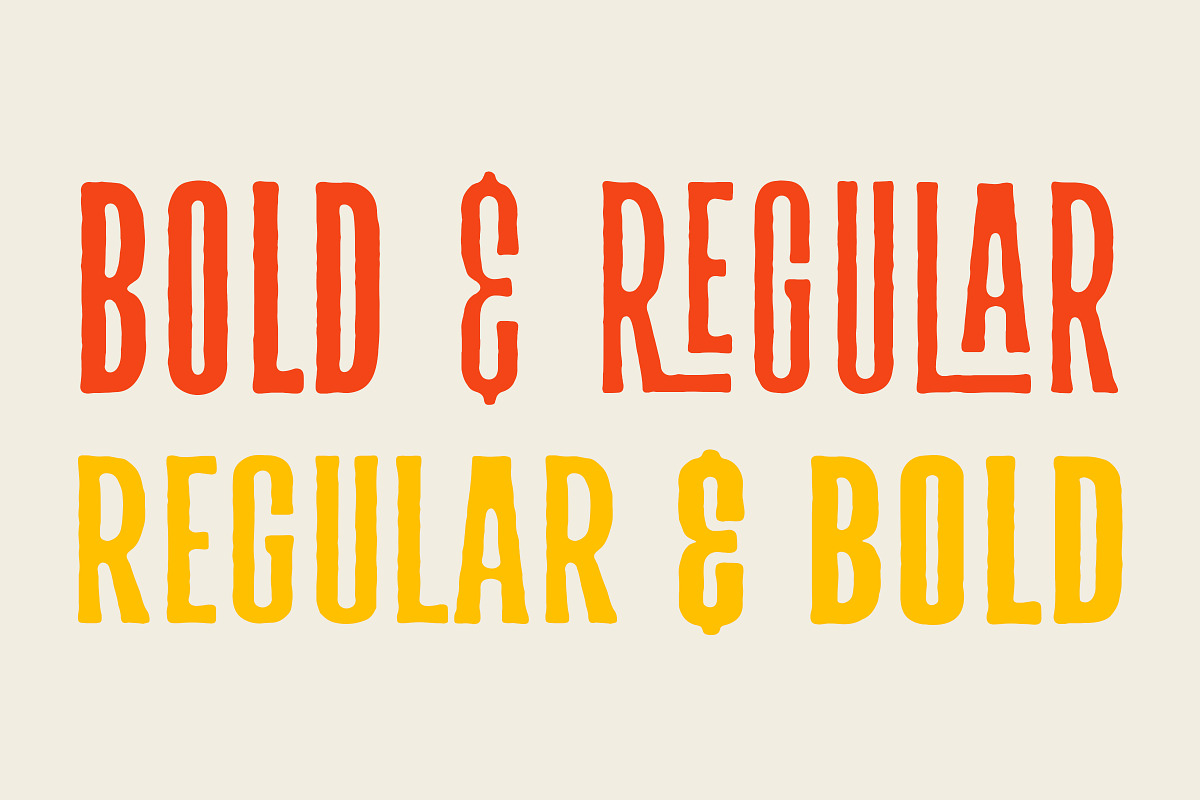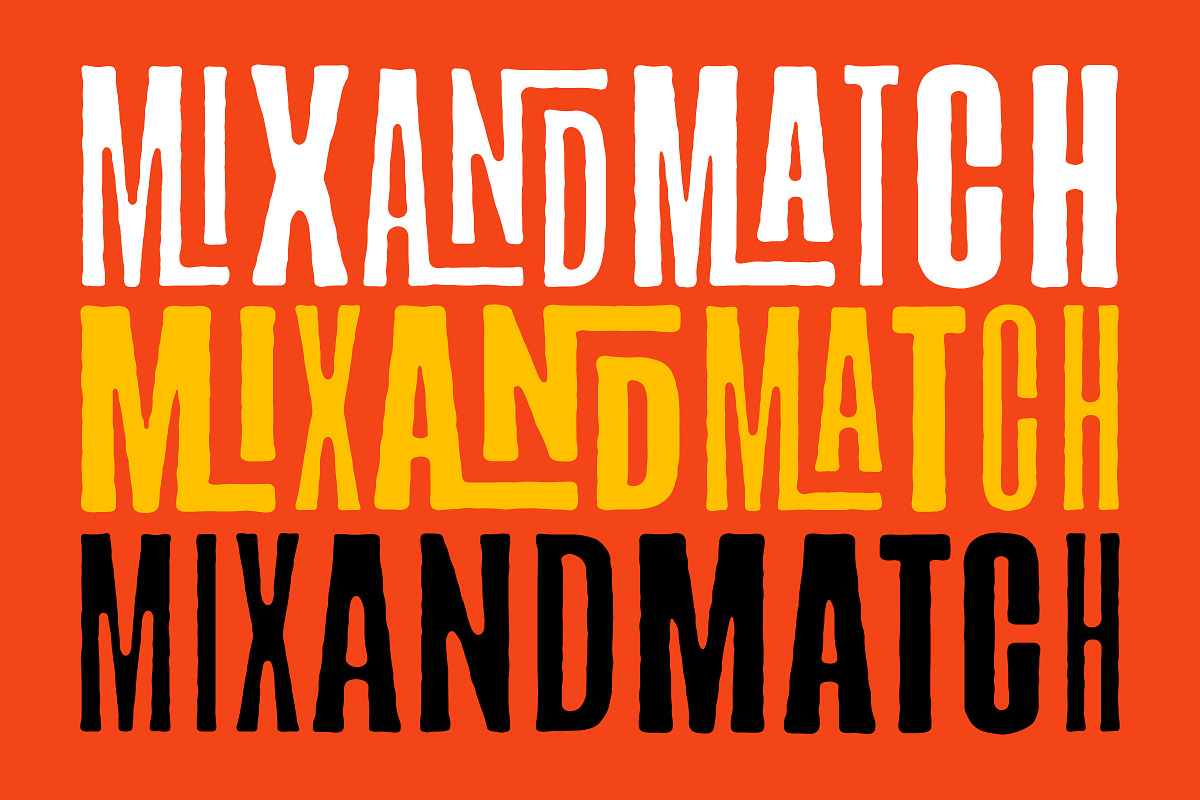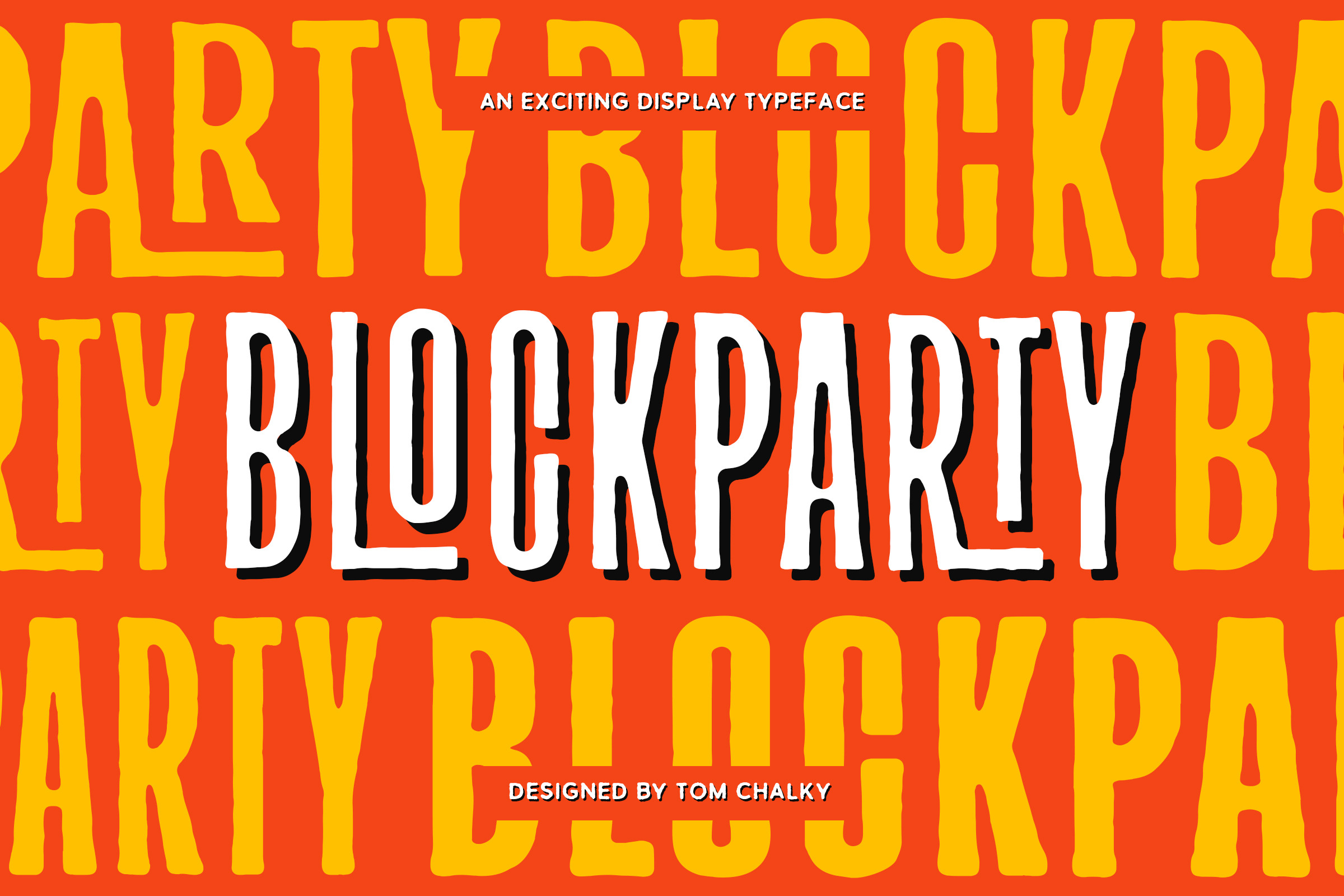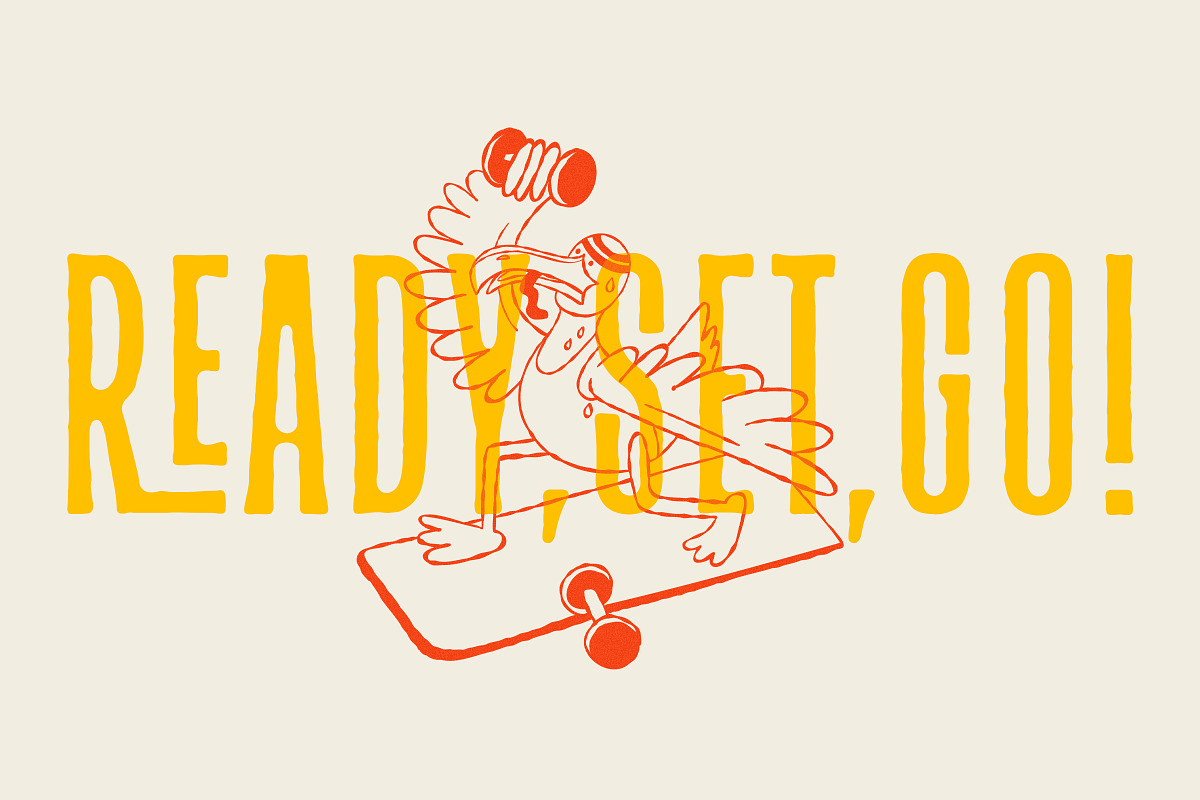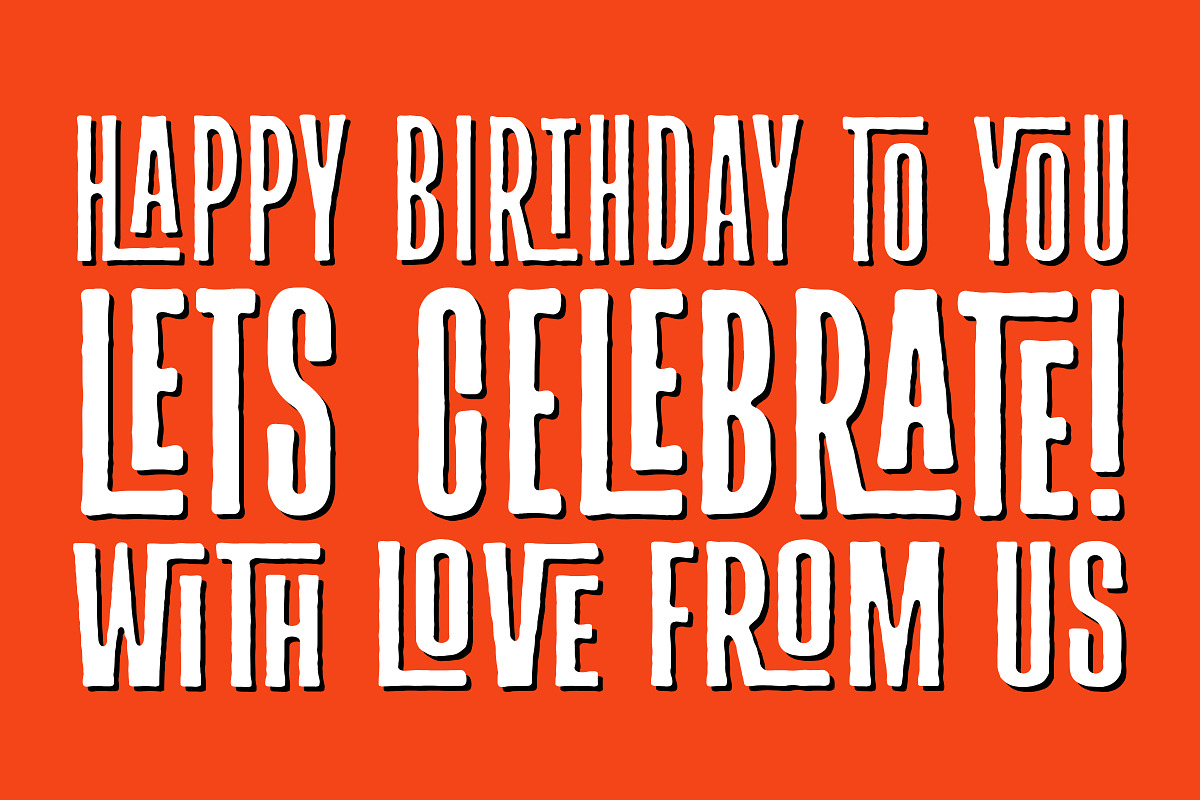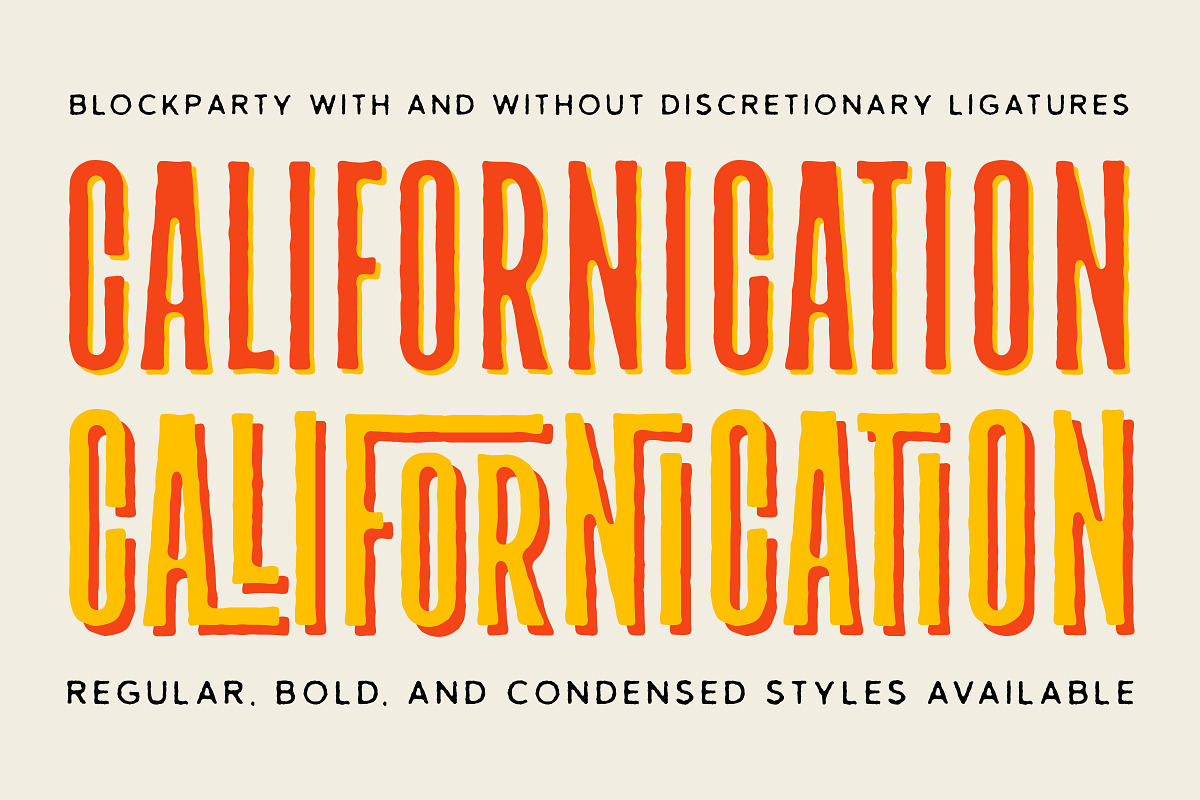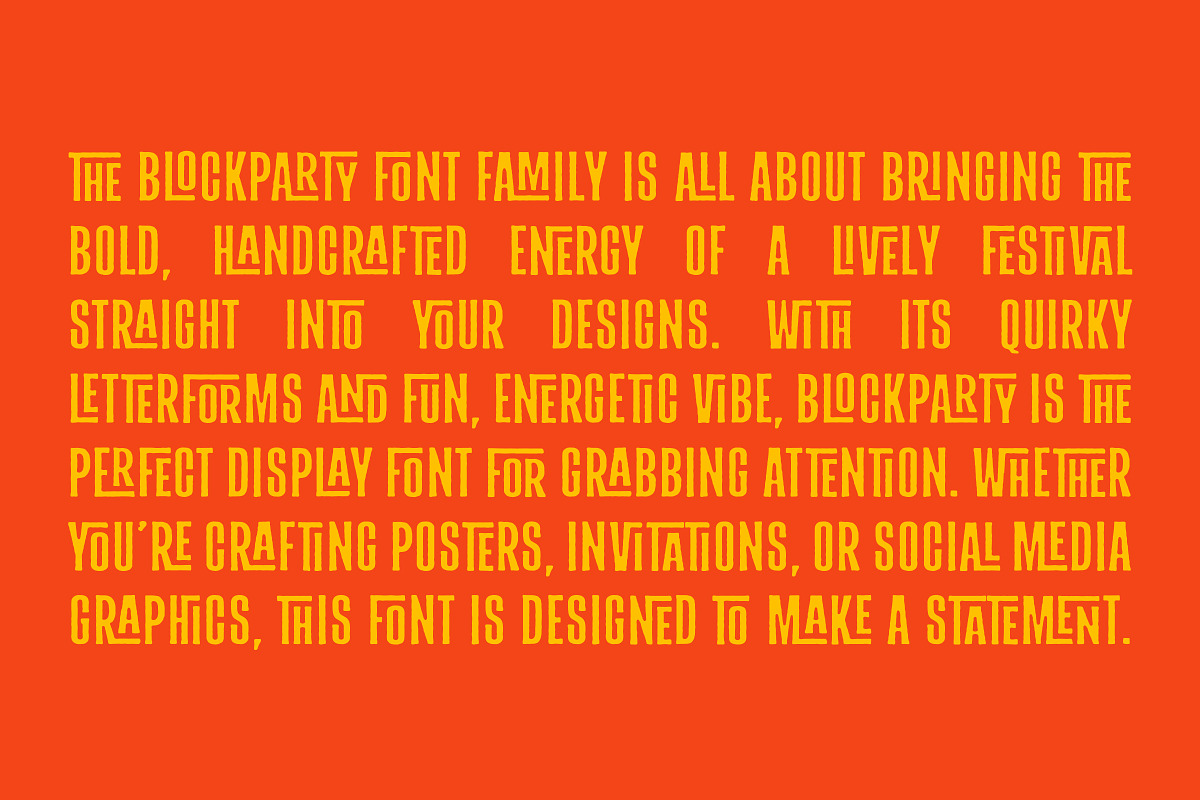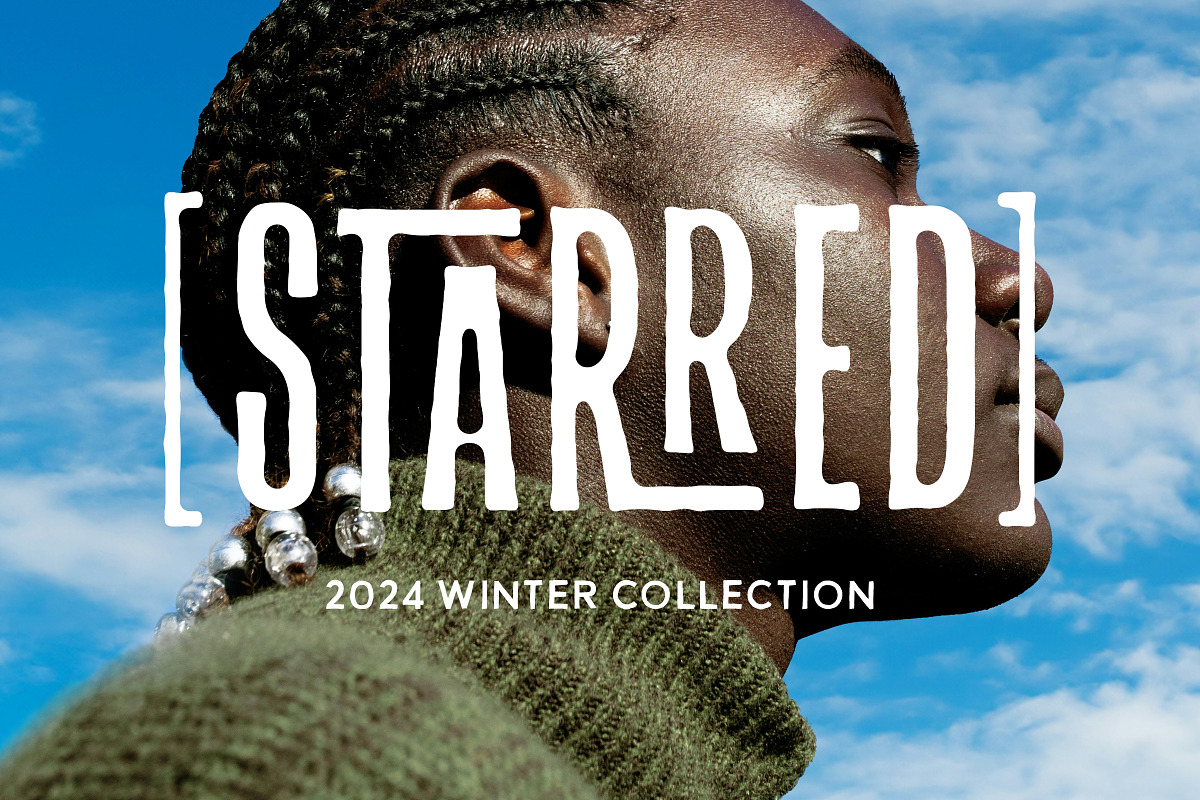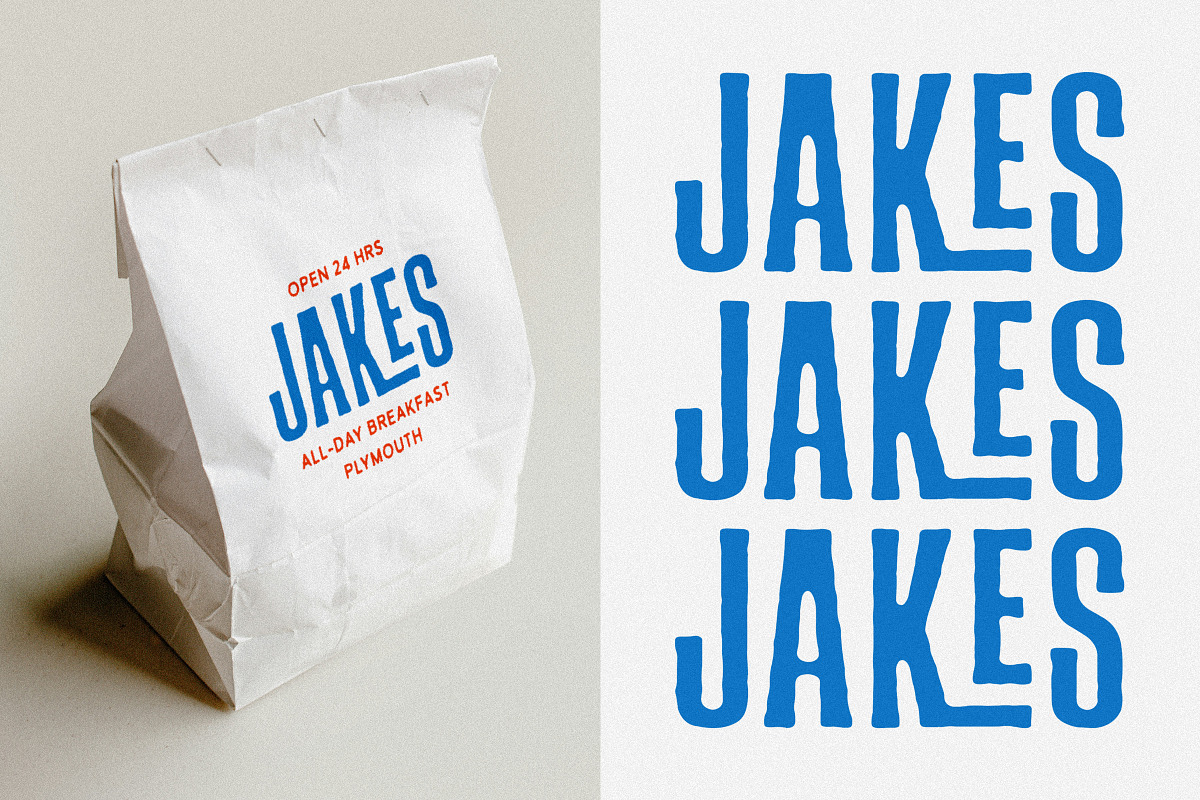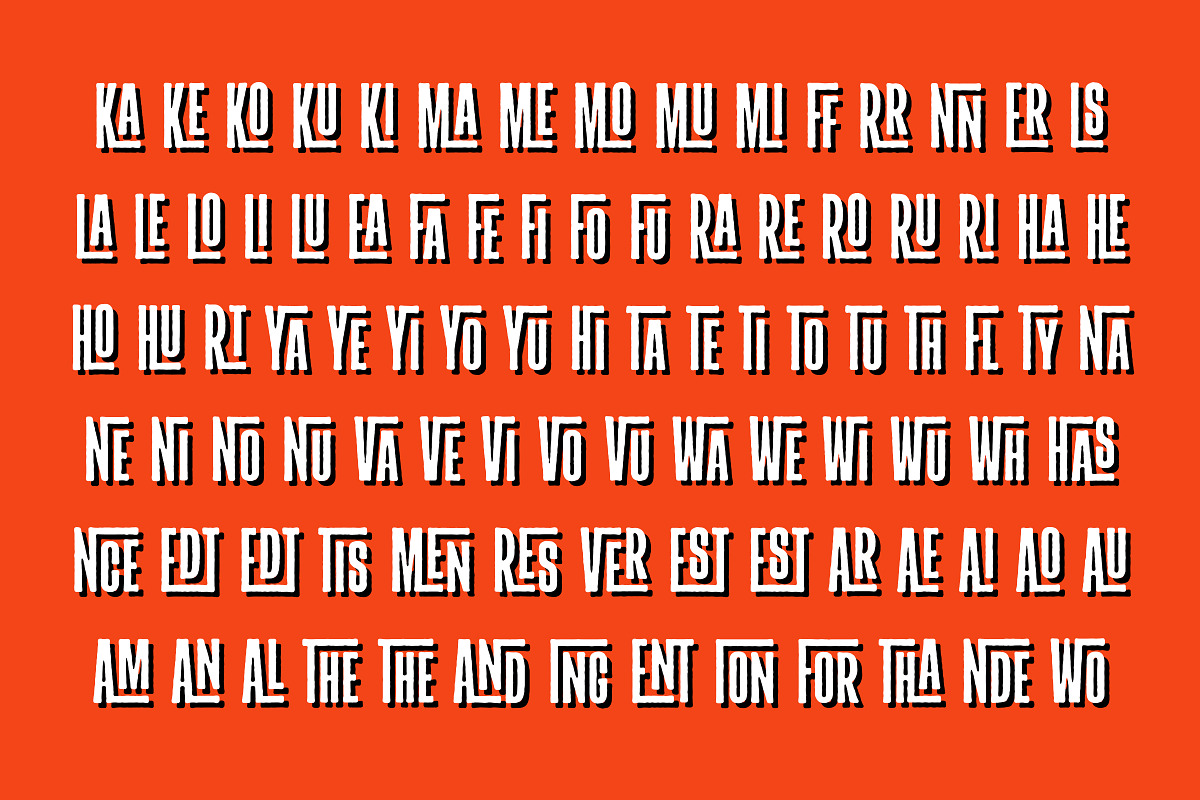
Blockparty - Fun Display Font
Introducing the Blockparty Font Family – bold, handcrafted, and packed with bundles of energy. With big, quirky letterforms, Blockparty is designed to stand out! Whether you're working on posters, packaging, or social media graphics, this font is all about grabbing those all-important eyeballs.
Featuring over 90 unique discretionary ligatures, it's easy to add a playful edge to your typography. Blockparty is versatile and fun—great for anything from party-themed projects to bold colorful branding.
- Over 90 unique discretionary ligatures for a playful touch
- Multilingual support, Covering all Western languages and a bunch more (Latin 1 Extended)
- Handcrafted, perfect for eye-catching displays
- Ideal for festival, party, and celebratory themes
- Suited for posters, packaging, branding, and social media graphics that need some extra spice